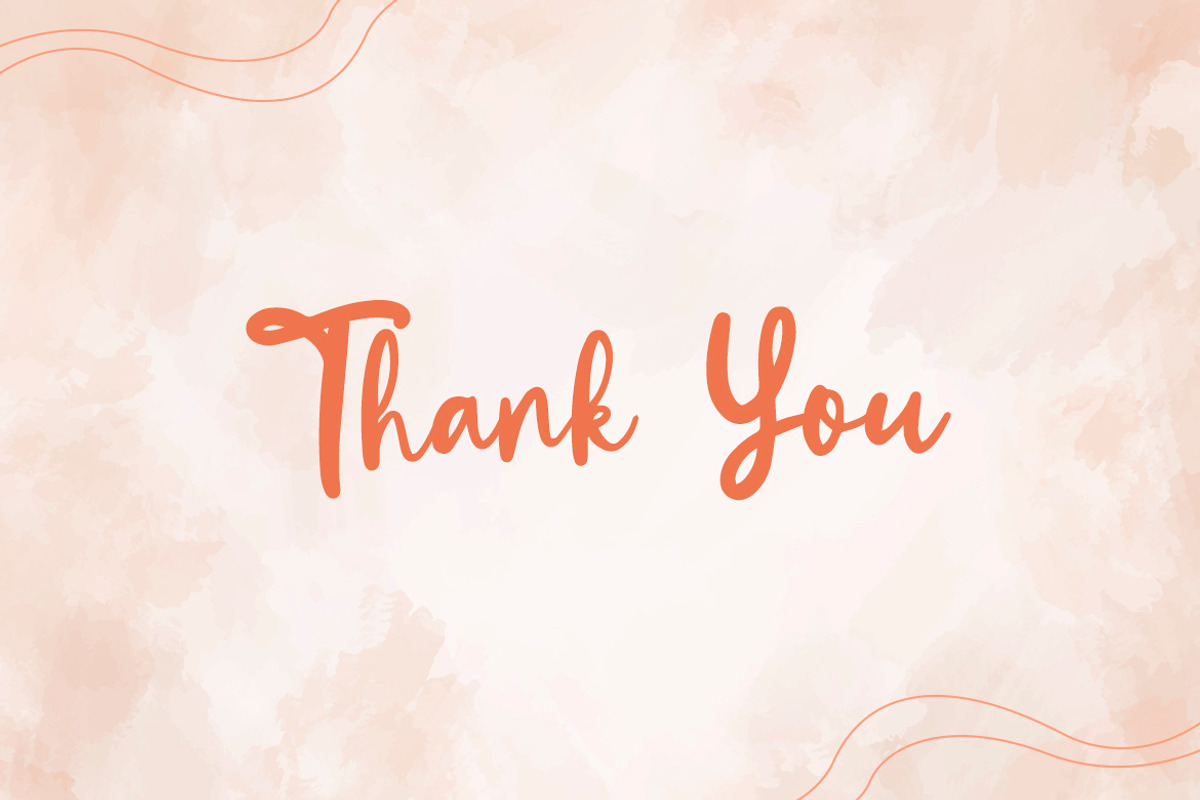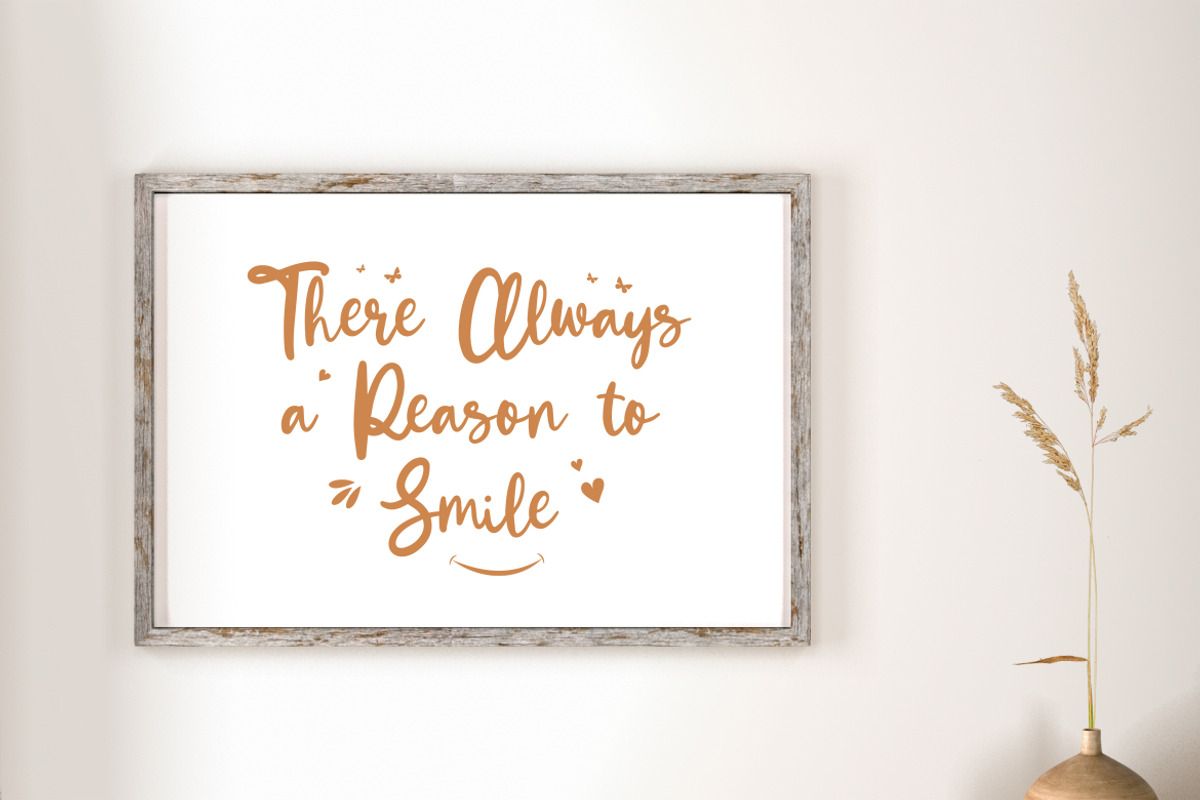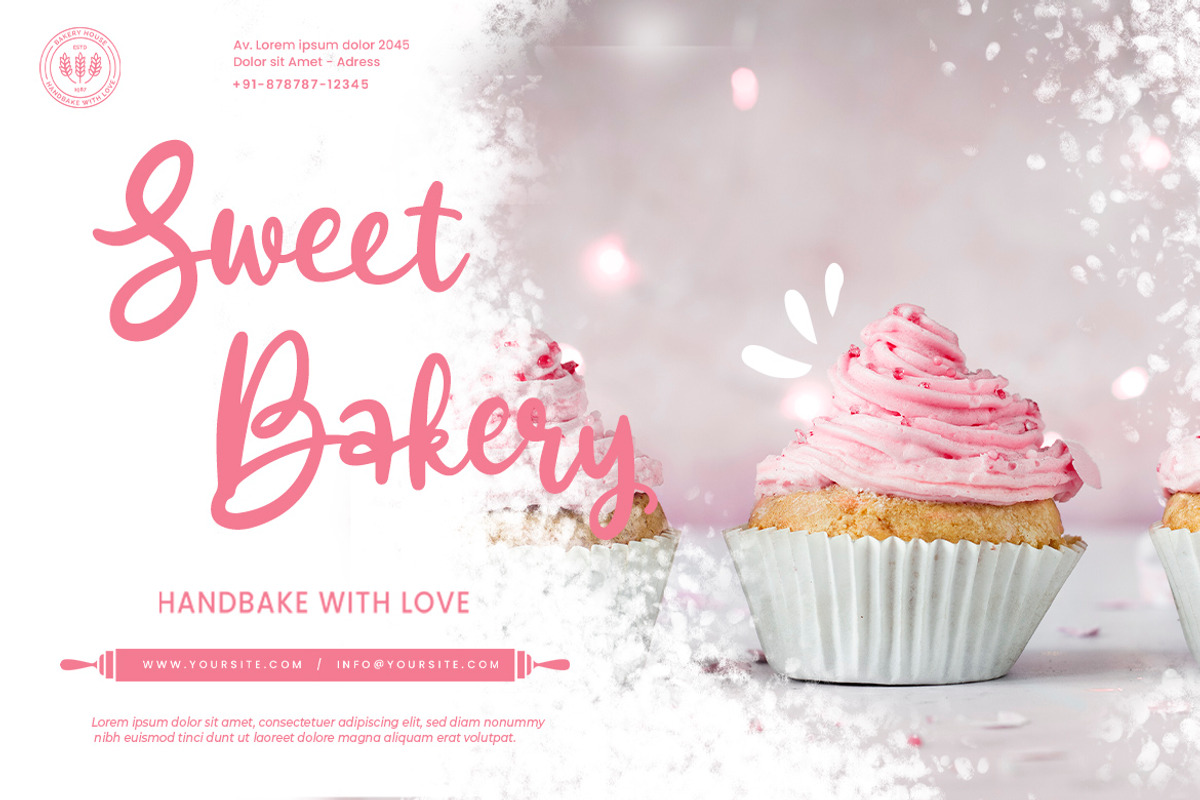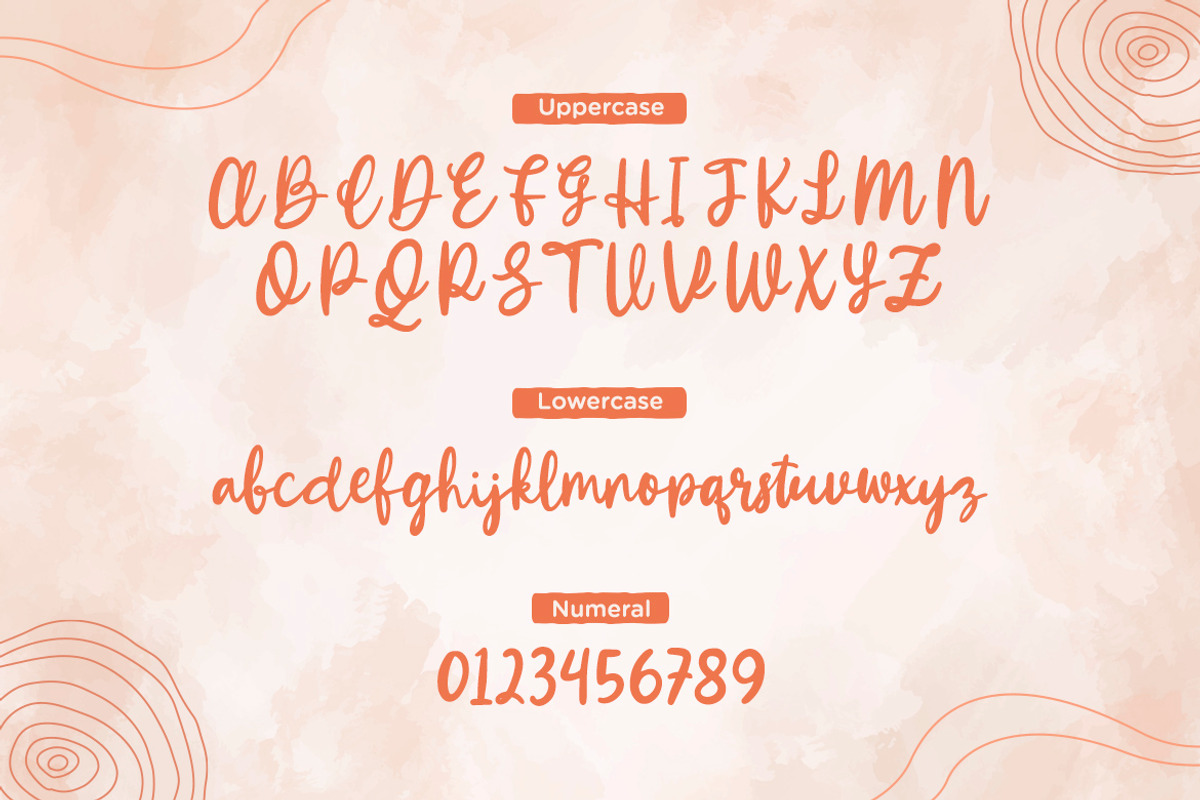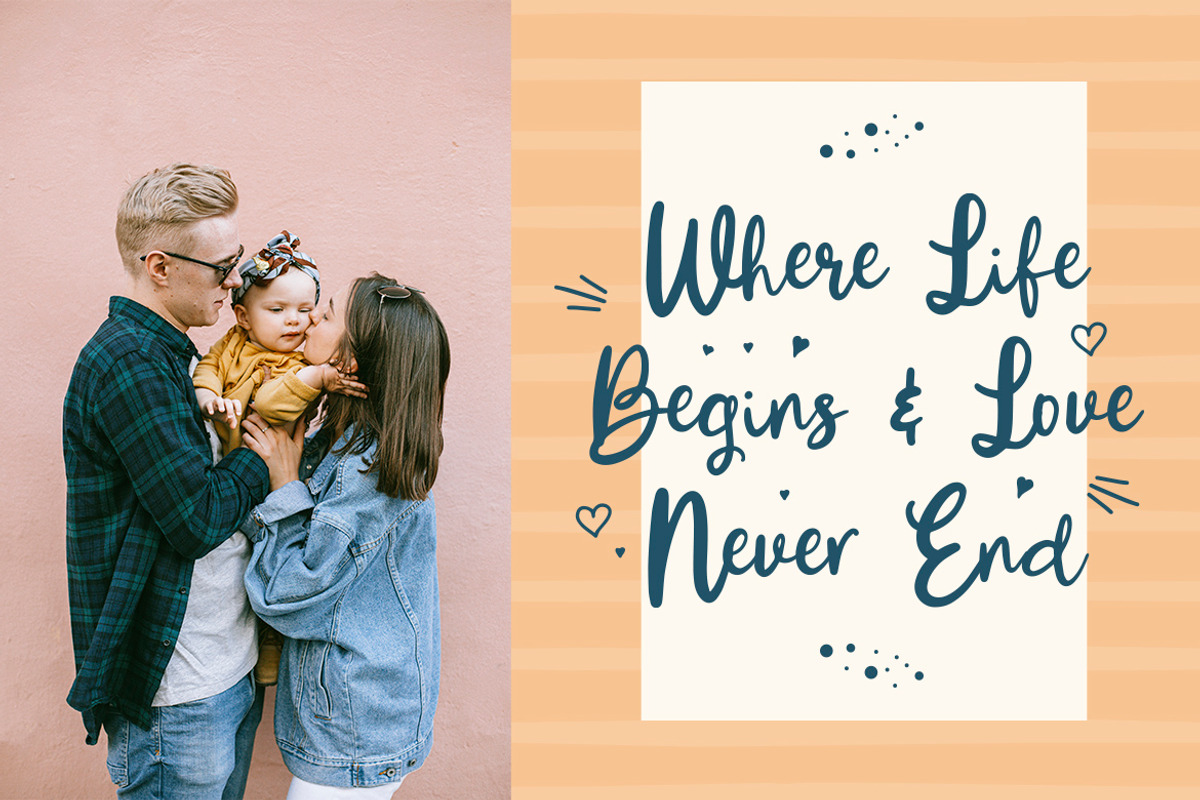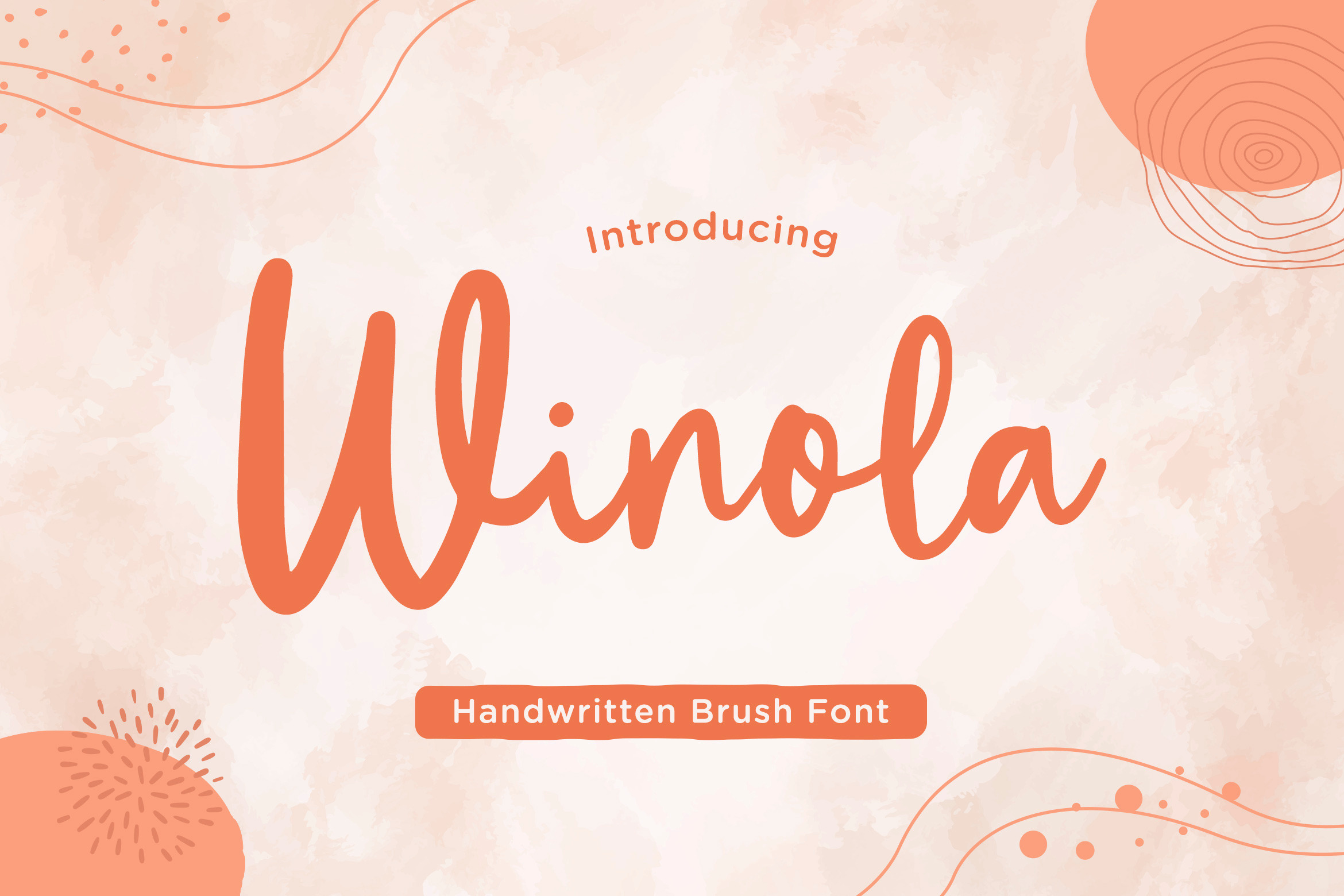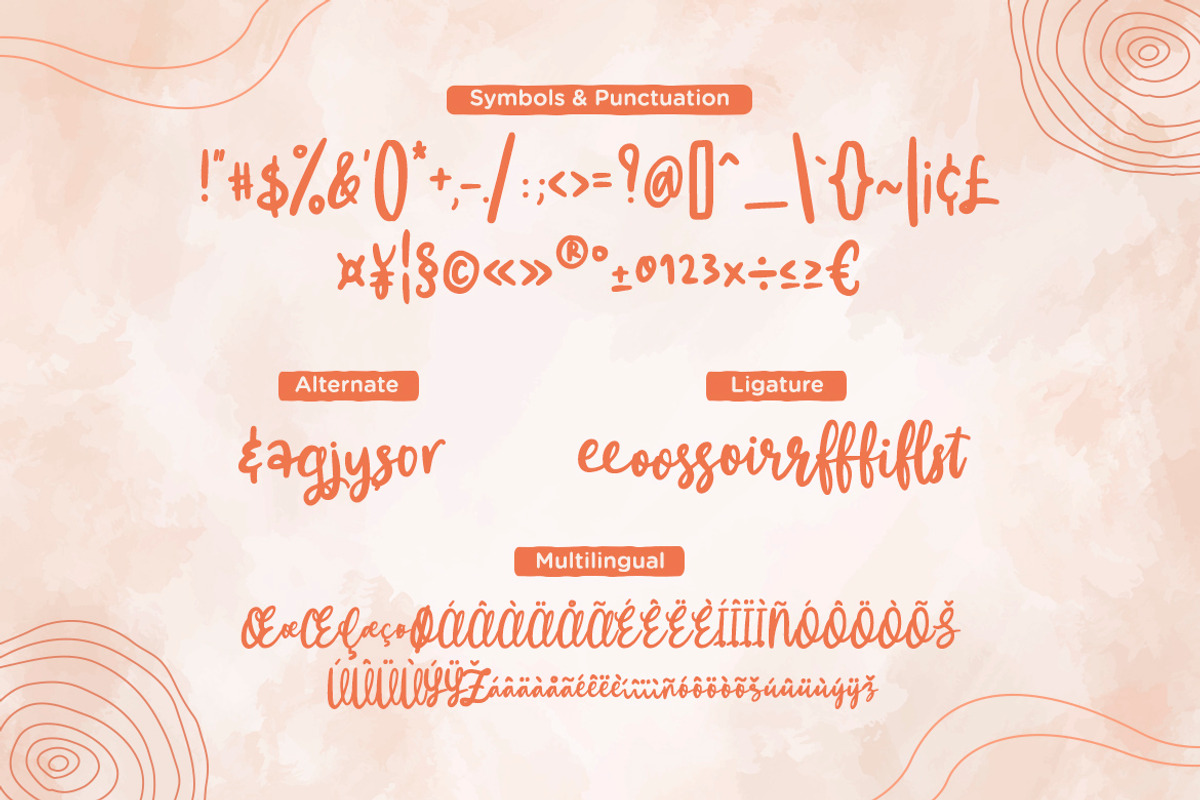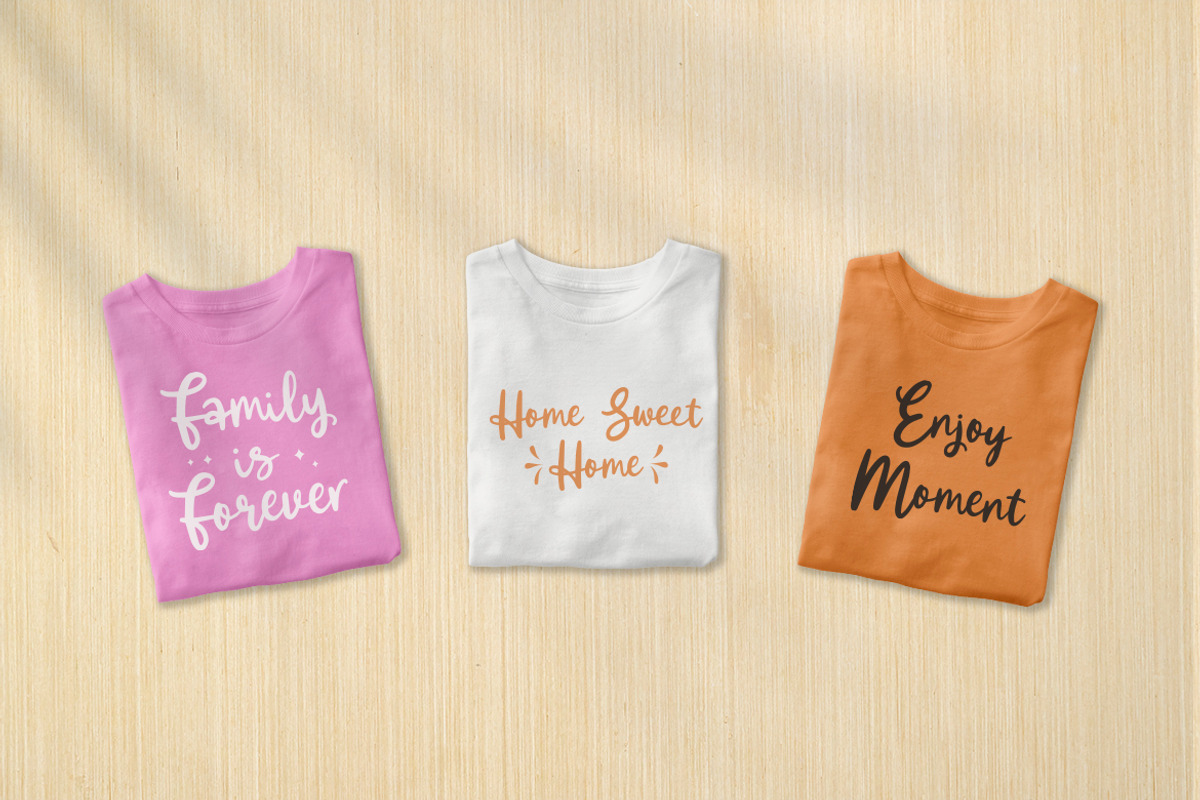
Winola - Handwritten Brush Font
Winola is a brush script font. It has an authentic modern brush script look making it perfect for branding and digital designs. Use this font for logos, wedding decor, invitations, home decor, websites, blogs, instagram, business cards, branding, social media, and more!